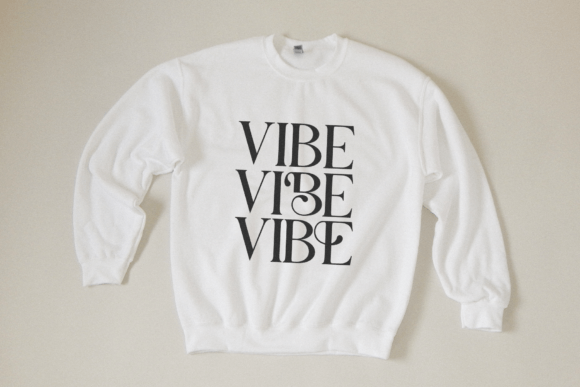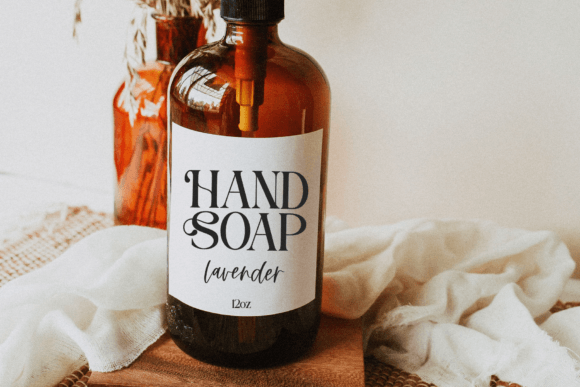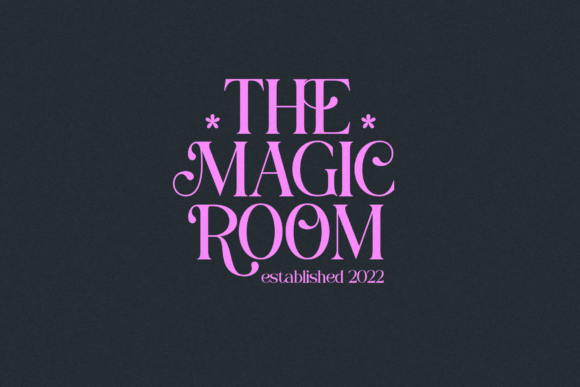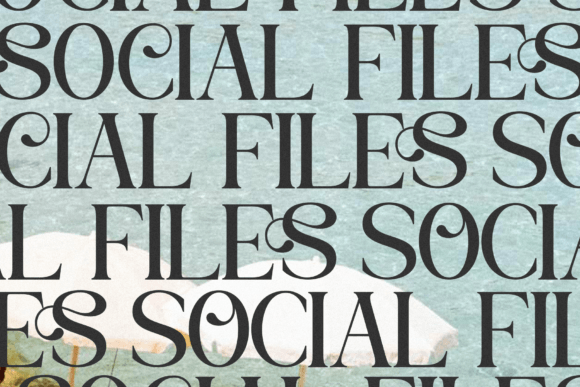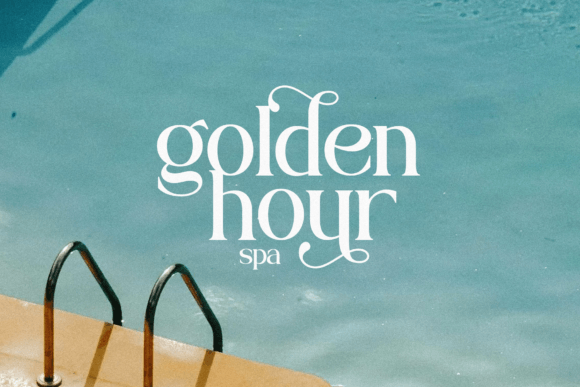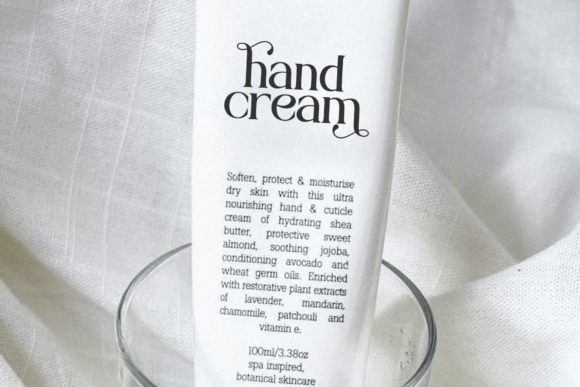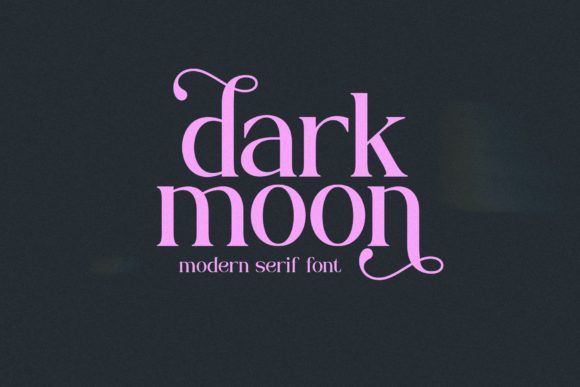
Unleash Your Creativity with Dark Moon Font: A Modern Serif with a Lot of Character
Are you a designer or crafter looking for a font that can add a touch of elegance and sophistication to your projects? Look no further than the Dark Moon Font. This modern serif font is perfect for a wide range of applications, from logos and branding to quotes, shirts, and craft projects. With its unique swash letters and stylish design, Dark Moon is sure to bring a lot of attention to any design you use it with.
What Makes Dark Moon Font So Special?
Dark Moon Font is a modern serif font that boasts a lot of character and style. Its sleek and sophisticated design makes it perfect for designers and crafters who want to add a touch of elegance to their projects. The font features swash letters throughout, which give it a unique and distinctive look. These swash letters add a touch of flair to any design, making it stand out from the crowd.
One of the best things about Dark Moon Font is its versatility. It’s perfect for a wide range of applications, including:
- Logos and branding: Create a professional and sophisticated logo for your business with Dark Moon Font.
- Quotes: Add a touch of elegance to your quotes with Dark Moon Font.
- Shirts: Create stylish and eye-catching t-shirts with Dark Moon Font.
- Craft projects: Add a touch of sophistication to your craft projects, such as handmade cards and invitations, with Dark Moon Font.
Why Choose Dark Moon Font?
There are many reasons why you should choose Dark Moon Font for your next project. Here are just a few:
- Unique design: Dark Moon Font features a unique and distinctive design that is sure to stand out from the crowd.
- High-quality: Dark Moon Font is a high-quality font that is designed to produce crisp and clear results.
- Versatile: Dark Moon Font is perfect for a wide range of applications, from logos and branding to quotes, shirts, and craft projects.
Tips for Using Dark Moon Font
Here are a few tips for using Dark Moon Font:
- Use it sparingly: Dark Moon Font is a bold and eye-catching font, so use it sparingly to avoid overwhelming your design.
- Pair it with other fonts: Dark Moon Font pairs well with other fonts, such as sans-serif fonts and script fonts.
- Experiment with different sizes: Dark Moon Font looks great in a variety of sizes, from large and bold to small and subtle.
In conclusion, Dark Moon Font is a modern serif font that is perfect for designers and crafters who want to add a touch of elegance and sophistication to their projects. With its unique swash letters and stylish design, Dark Moon Font is sure to bring a lot of attention to any design you use it with. Whether you’re creating a logo, quote, shirt, or craft project, Dark Moon Font is a great choice.